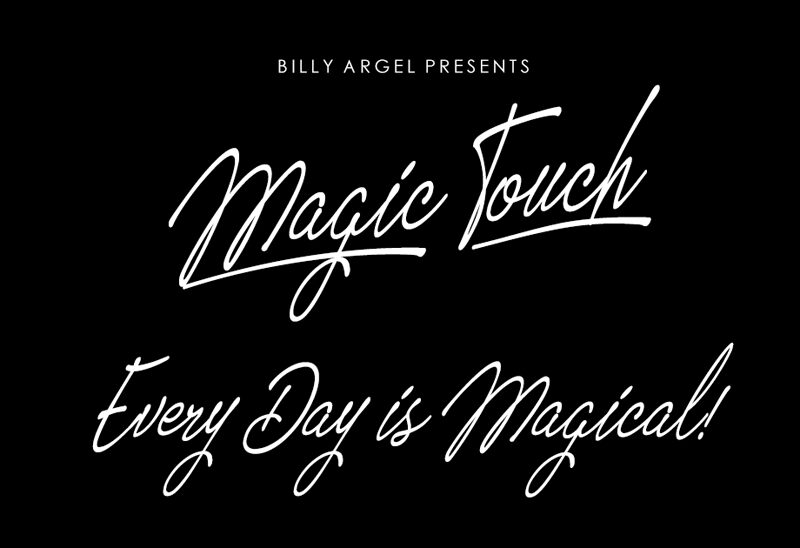
Magic Touch Personal Use Regular
Magic Touch is a captivating handwritten font that exudes a sense of elegance and charm. Its light, condensed strokes create a flowing, calligraphic aesthetic, evoking a sense of artistry and personalization.
The organic, expressive nature of the letterforms lends itself beautifully to a wide range of design applications, from wedding invitations and greeting cards to branding and packaging.
This versatile font can add a touch of sophistication and a distinctive flair to any project, seamlessly blending traditional craftsmanship with modern sensibilities.